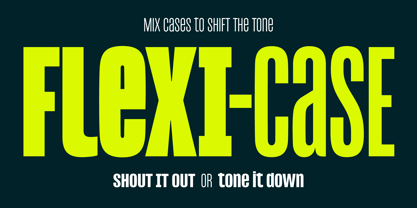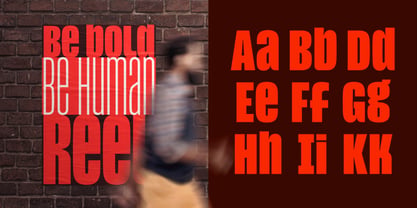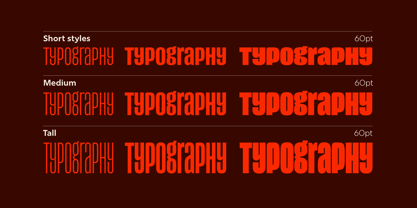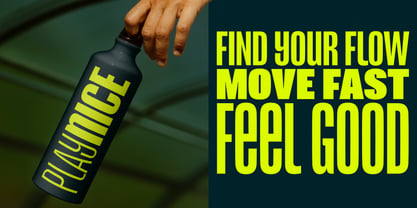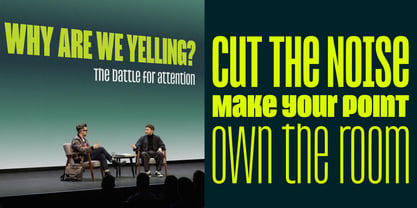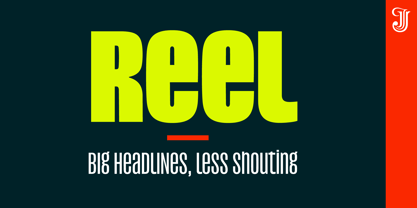
Reel is a condensed headline typeface that brings lowercase letters to the same height and visual presence as capitals, giving designers greater expressive control over titles without sacrificing the neat, rectangular structure of ALL CAPS typography.
• Create strong, structured headlines without shouting
• Mix upper and lowercase to soften and sharpen tone
• Choose weight and height to fit titles neatly into any space